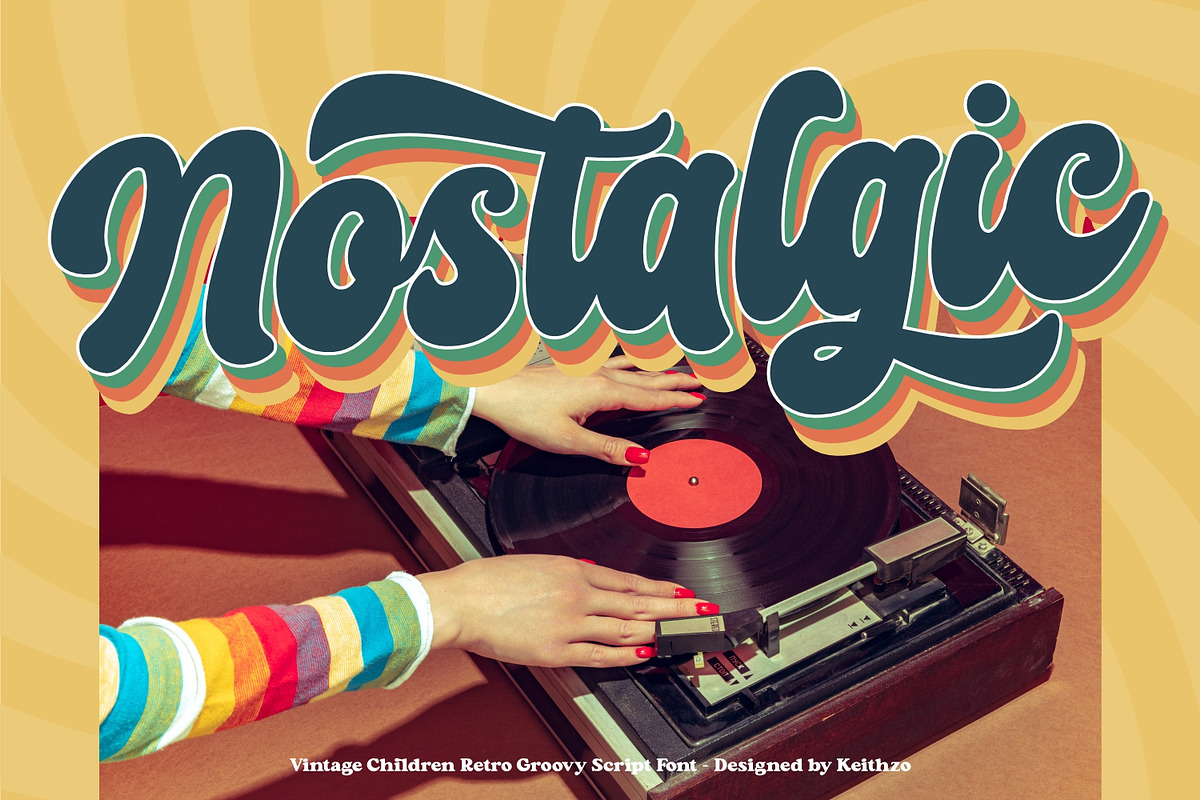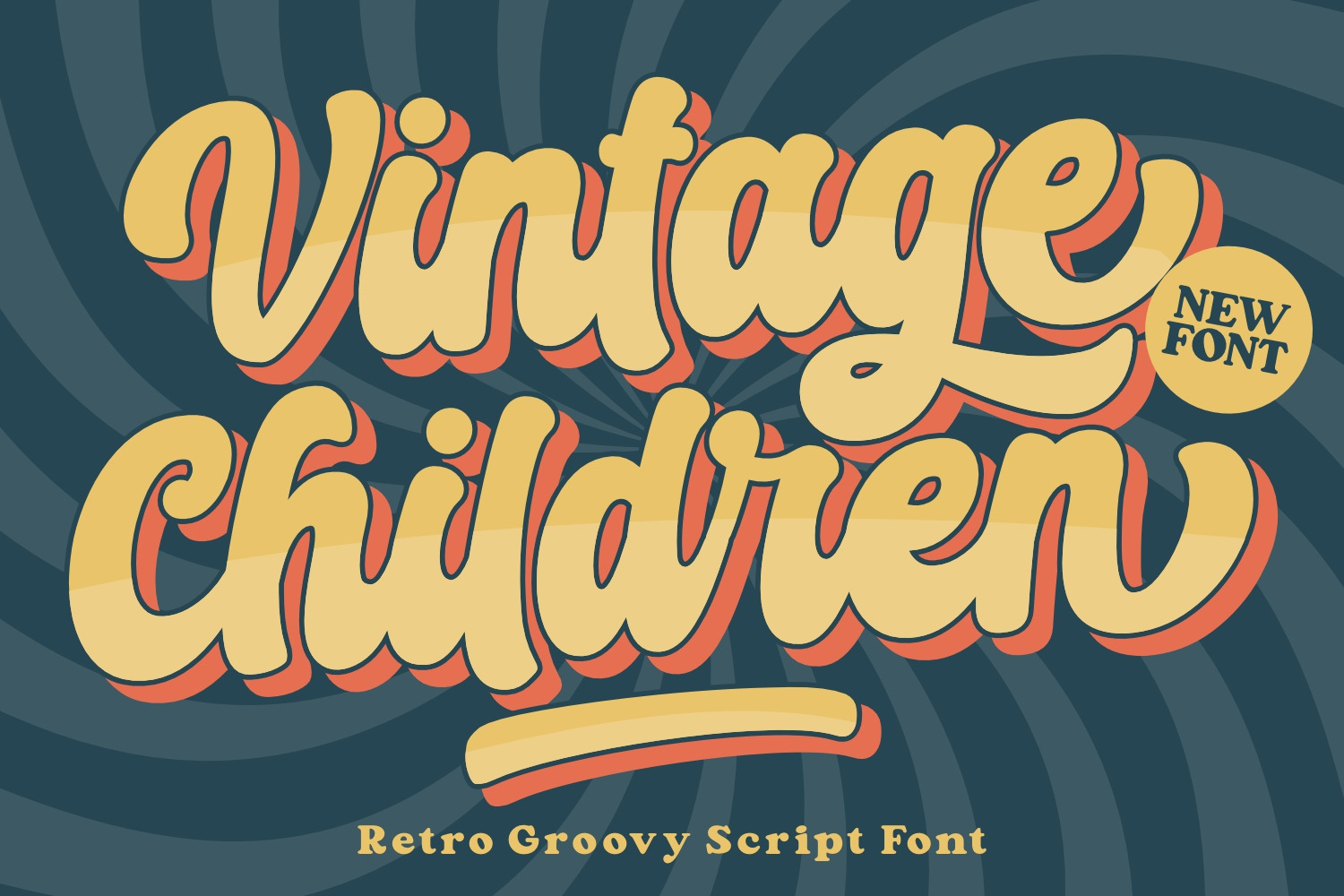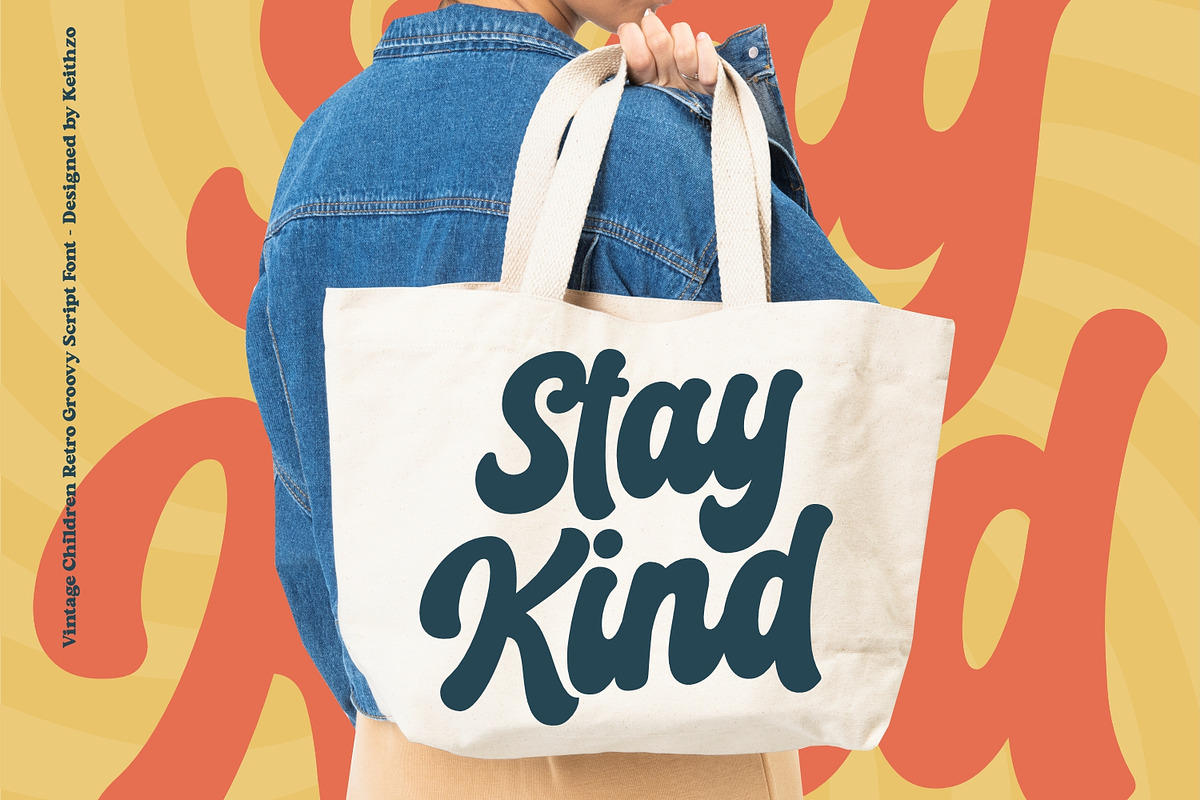
Vintage Children - Script Font
Vintage Children is a groovy retro script font with a sense of funk, fun, and free-spiritedness. This font is characterized by its bold, flowing strokes and exaggerated curves, reminiscent of the hand-drawn lettering seen in vintage psychedelic posters and album covers.
The letters in the groovy retro script font are fluid and expressive, with unique flourishes and stylistic elements that give them a playful and energetic vibe.
The font is perfect for projects that seek a nostalgic or vintage feel, such as retro-themed designs, party invitations, music album covers, or any creative work aiming for a groovy and vibrant atmosphere.
Stylistic and Ligatures
Accented characters